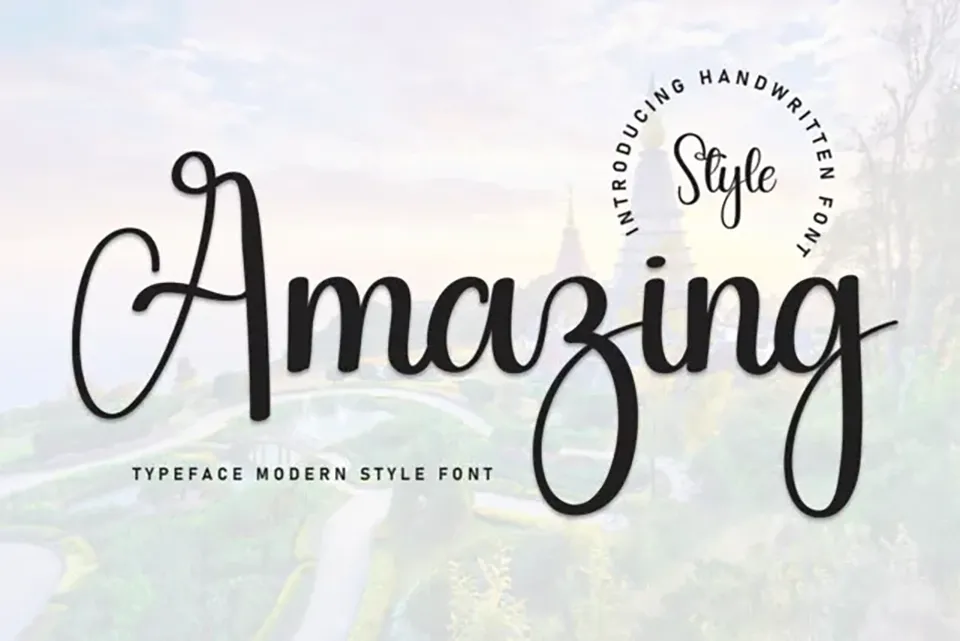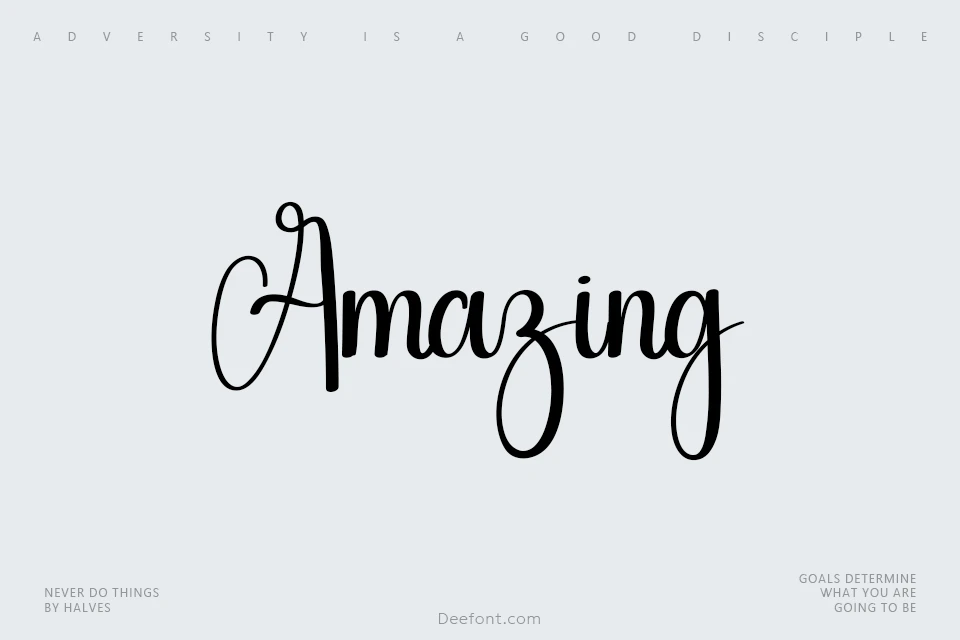
Amazing Calligraphy Font
Amazing Calligraphy Font is a stylish handwritten typeface that combines elegance and modern flair. Featuring smooth, flowing strokes and beautifully crafted letterforms, this font is perfect for adding a personal and sophisticated touch to your designs. Its versatile style makes it ideal for wedding invitations, branding, greeting cards, posters, and social media content. The font’s balanced curves and refined aesthetics ensure excellent readability while delivering a sense of creativity and charm. Amazing Calligraphy Font brings a timeless yet contemporary feel to any project, making it the perfect choice for those seeking a graceful and expressive design solution.